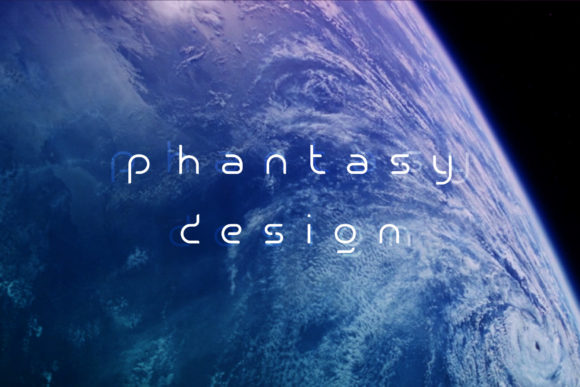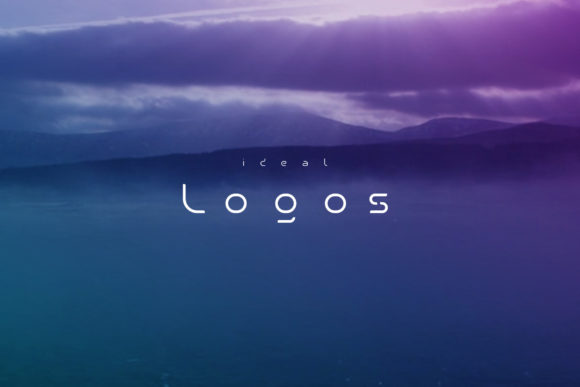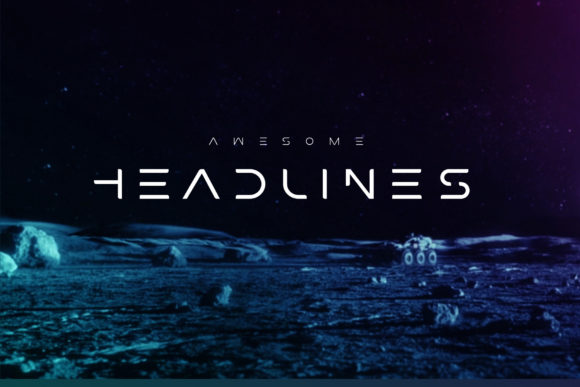
Introduction to Researcher Font
Have you ever been working on a creative project, staring at a blank page, and suddenly, the perfect font pops into your head? For many designers, that ‘aha’ moment is what sets their ideas in motion. And for those seeking that elusive spark, we’re excited to introduce you to the Researcher Font – a clean, modern, and sleek display font that’s sure to elevate your designs to the next level.
With its minimalist and techno-styled aesthetic, the Researcher Font is the perfect addition to any web design, logo, or project that demands a smart, cool touch. Whether you’re a seasoned designer or just starting out, this versatile font is an invaluable design resource that’s sure to bring a high-quality finish to your work. In this article, we’ll delve into the world of Researcher Font and explore its many benefits, including its free download and transparent background capabilities.
- High-quality design: Researcher Font is a professional and elegant font perfect for any creative project, offering a sophisticated look and feel.
- Unique characteristics: The Researcher Font features a unique blend of modern and classic elements, making it an ideal choice for designers looking for a distinctive and professional look.
Honest Review: Researcher Font
As a designer, I’m always on the lookout for high-quality design resources that can elevate my creative projects. Recently, I stumbled upon the Researcher Font, which claims to be a free download with a transparent background. In this review, I’ll share my honest thoughts on this font.
What works well: ✨ The Researcher Font has a clean and modern design that’s perfect for academic or professional projects. The transparent background makes it easy to overlay on images or backgrounds, giving it a sleek and sophisticated look. The font is also highly legible, making it suitable for body text or headings.
- Transparent background for easy overlay
- Legible and suitable for body text or headings
However, I did encounter some limitations: ⚠️ The font family is limited, with only a few styles available. Additionally, the font may not be suitable for creative projects that require a more playful or whimsical tone.
Overall, I think the Researcher Font is a solid design resource that’s perfect for academic or professional projects. While it may have some limitations, its high-quality design and transparent background make it a valuable addition to any designer’s toolkit.
When it comes to creating a high-quality design, having the right font can make all the difference. Researcher Font is a free download that offers a unique and sophisticated look, perfect for any creative project. With its transparent background and elegant design, Researcher Font is a versatile design resource that can be used in a variety of settings.
To get the most out of Researcher Font, be sure to pair it with a high-quality image or background to create a visually appealing design. You can also experiment with different font sizes and styles to create a unique and eye-catching look.
Common Use Cases for Researcher Font
Researcher Font is a versatile font that can be used in a variety of settings, including academic and professional presentations, marketing materials, and creative projects. Its elegant design and transparent background make it a great choice for any project that requires a sophisticated look.